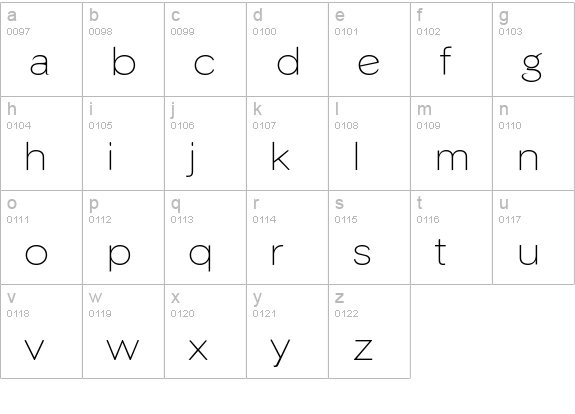
Phinster Fine Regular Font Details
Phinster Fine Regular is the standard, neutral variant in the Phinster typeface family \xE2\x80\x94 well suited to general body text, paragraphs, and standard typographic work.
Phinster Fine Regular font is a true gem in the world of typography, exuding elegance and sophistication with its refined curves and timeless design. Its sleek and well-balanced letterforms make it an ideal choice for a wide range of projects, from branding and advertising to editorial design and beyond. This font boasts a perfect blend of classic and contemporary elements, capturing the essence of traditional serif typefaces while embracing a modern twist. The smooth lines and carefully crafted details give Phinster Fine Regular font a distinctive personality that is both versatile and captivating. One of the most remarkable aspects of Phinster Fine Regular font is that it is freely available to download at FontsMarket.com. This means that designers and creatives can access this extraordinary font without any cost, allowing them to explore its endless possibilities and unlock their creative potential. Whether you are designing a logo for a high-end fashion brand, creating a magazine layout that demands attention, or simply looking to elevate your typography game, Phinster Fine Regular font is the perfect choice. Its impeccable craftsmanship and timeless appeal will undoubtedly add a touch of sophistication and refinement to any project. Embrace the beauty of Phinster Fine Regular font and allow it to enhance your designs with its elegance and charm. Download it for free at FontsMarket.com and discover the endless creative possibilities that await you. Let this font become your secret weapon in creating stunning and unforgettable visuals that leave a lasting impression.